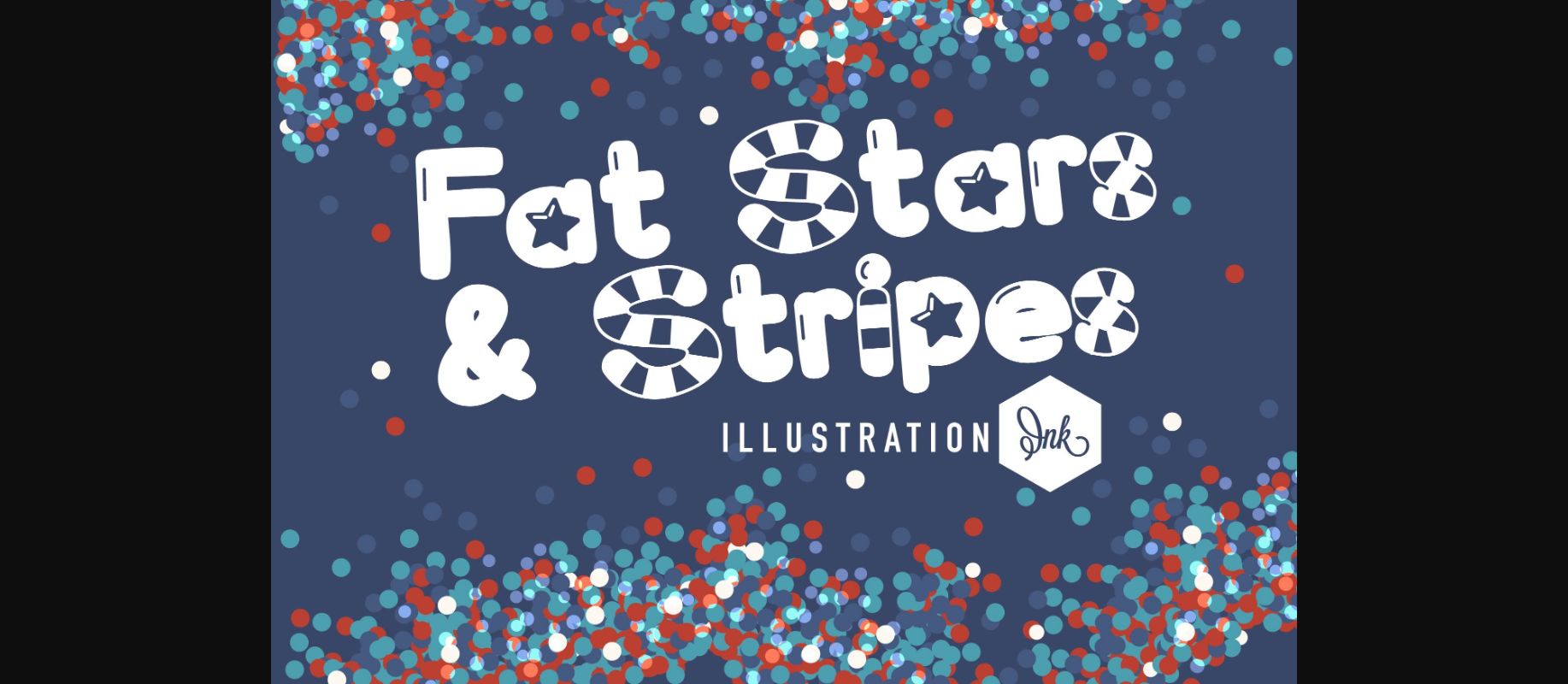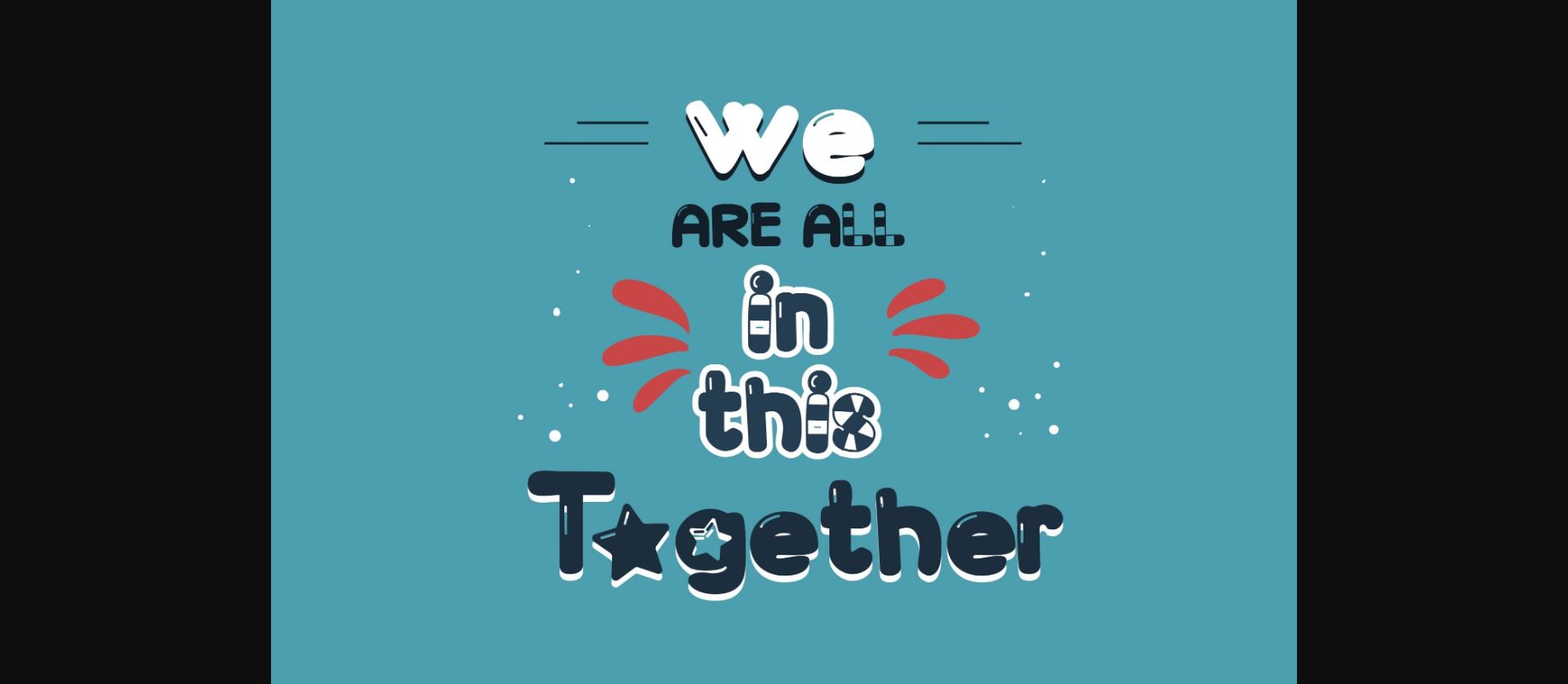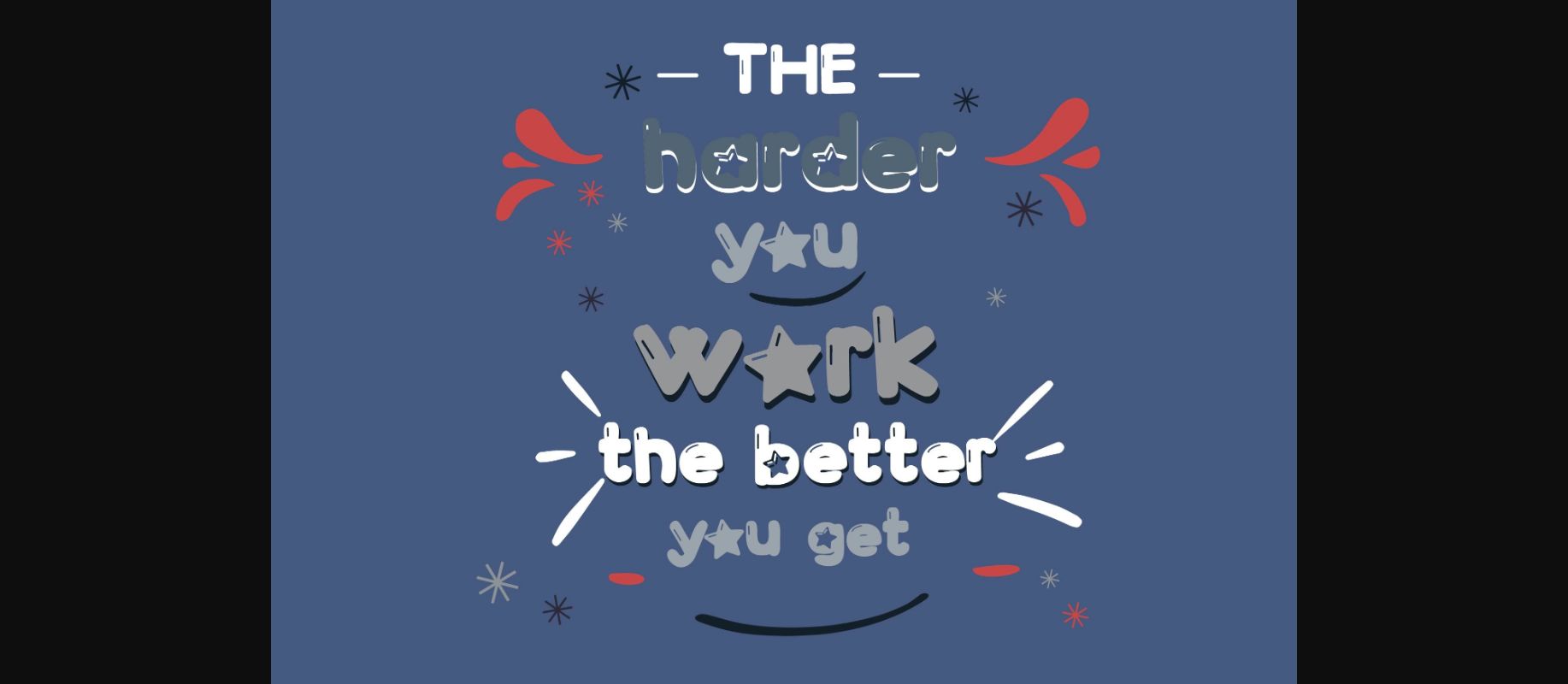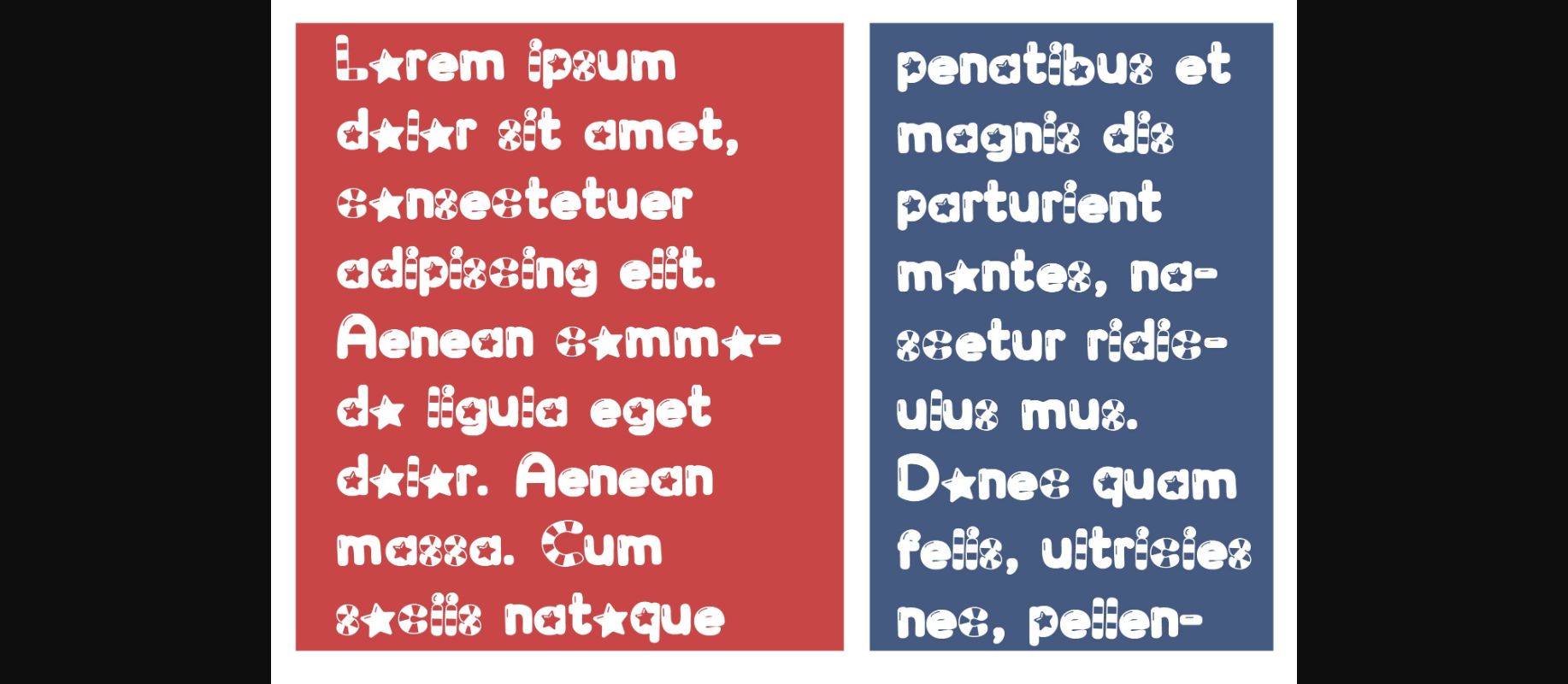
About Fat Stars and Stripes Font
Fat Stars and Stripes is a chunky, hand-crafted font inspired by American patriotism. With its striking design, it brings the iconic stars and stripes to life, embodying the spirit of freedom and unity. Each letter is meticulously crafted to showcase the strength and resilience of the American spirit, making it the perfect choice for patriotic designs, celebratory occasions, or any project that demands a touch of American pride.